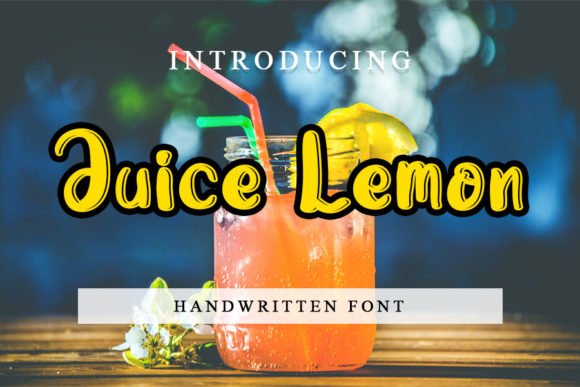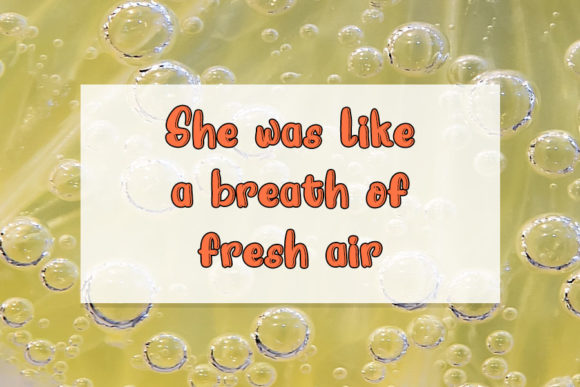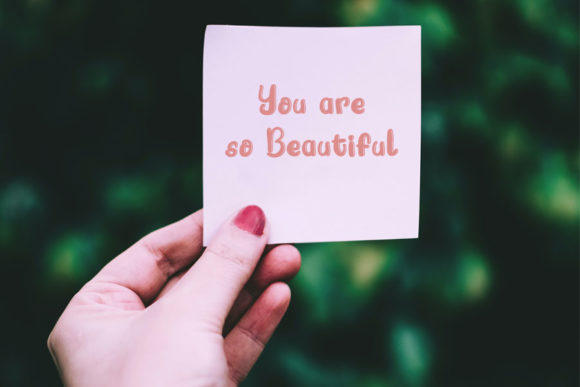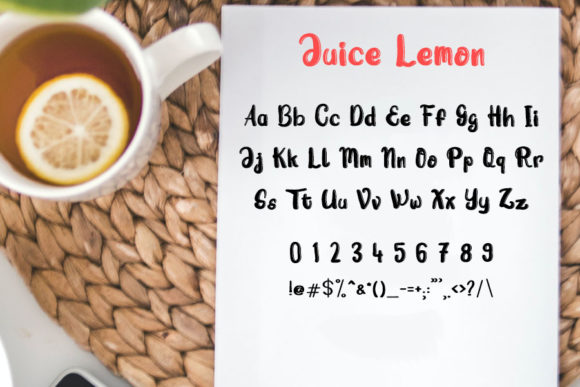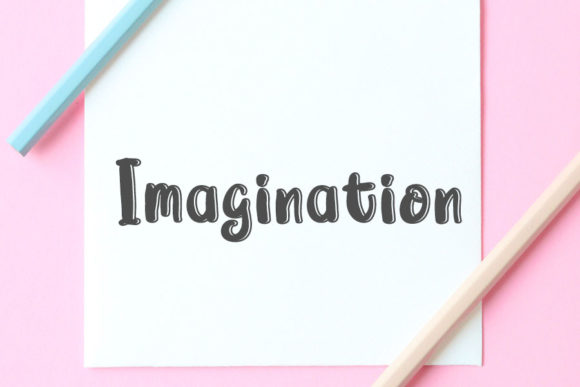
Discover the Zing of Creativity with the Juice Lemon Font
Have you ever stumbled upon a font that just makes you smile? For us, it’s those moments when the perfect combination of style and personality comes together, sparking a wave of creative ideas. That’s exactly what happens when you meet the Juice Lemon Font – a delightful display font that’s as playful as it is charming.
Designed to add a touch of whimsy to your designs, the Juice Lemon Font is perfect for logos, branding, posters, and all sorts of crafty DIY projects. Its friendly vibe makes it a valuable asset for designers looking to infuse their work with a sense of approachability and fun. Whether you’re working on a new brand identity or creating a eye-catching poster, the Juice Lemon Font is sure to bring a burst of energy to your projects.
- Unique Characteristics: The Juice Lemon Font features a unique blend of modern and vintage elements, with a bold and playful feel that is perfect for creative and eye-catching designs.
Juice Lemon Font Review
I recently had the chance to work with the Juice Lemon Font, and I must say, it’s a unique and refreshing addition to any design project. ✨ Here are some of the things that caught my attention:
- The bold and playful personality of the font really shines through, making it perfect for creative and fun projects.
- The clean lines and smooth curves give it a modern and sophisticated feel, making it suitable for a wide range of applications.
- The font’s versatility allows it to be used for both digital and print media, making it a great all-around choice.
However, like any font, Juice Lemon has its limitations. ⚠️ Here are some things to keep in mind:
- The font may not be the best choice for projects that require a more serious or professional tone.
- The bold style may be overwhelming for certain applications, so it’s best to use it sparingly.
Overall, I think Juice Lemon is a great font for designers who want to add a little creativity and whimsy to their projects. While it may not be the best choice for every project, it’s definitely worth considering for those that require a bold and playful touch.
Tips for Getting the Most Out of Juice Lemon Font
Use Juice Lemon Font to add a touch of elegance and sophistication to your designs. It pairs well with bold, bright colors and is perfect for creating eye-catching headlines and titles.
Experiment with different font sizes and styles to create visual interest and hierarchy in your designs.
Use Juice Lemon Font for:
- Product labels and packaging
- Marketing materials and advertising
- Editorial and publishing content
Alternatives to “Juice Lemon Font” for Designers
The “Juice Lemon Font” is a unique and modern sans-serif font, but it may not be the best fit for every project. Here are some alternatives to consider:
Montserrat is a geometric sans-serif font that is highly legible and versatile. It is great for use in headlines, titles, and body text, and is particularly well-suited for modern and minimalist designs. Compared to Juice Lemon Font, Montserrat is more geometric and has a stronger grid-based structure.
Lato is a clean and modern sans-serif font that is highly legible and versatile. It is great for use in body text, titles, and headlines, and is particularly well-suited for minimalist and modern designs. Compared to Juice Lemon Font, Lato is more rounded and has a softer feel.